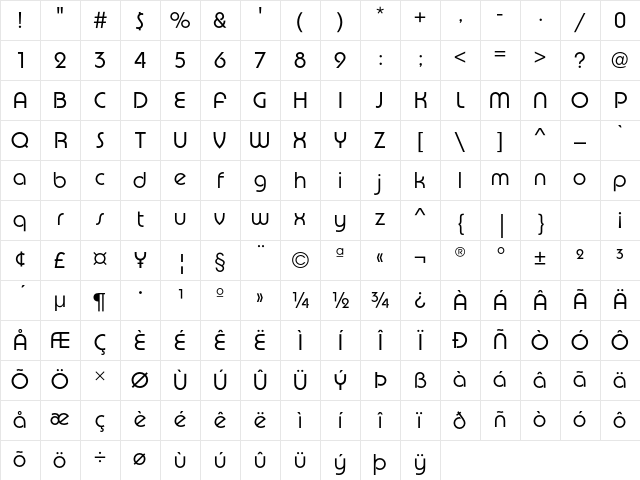
PumpEF Light
PumpEF Family
Design Context for PumpEF
PumpEF is a composed and adaptable typeface that performs quietly and consistently across a wide range of design contexts. Its slender proportions lend an understated elegance to any composition.